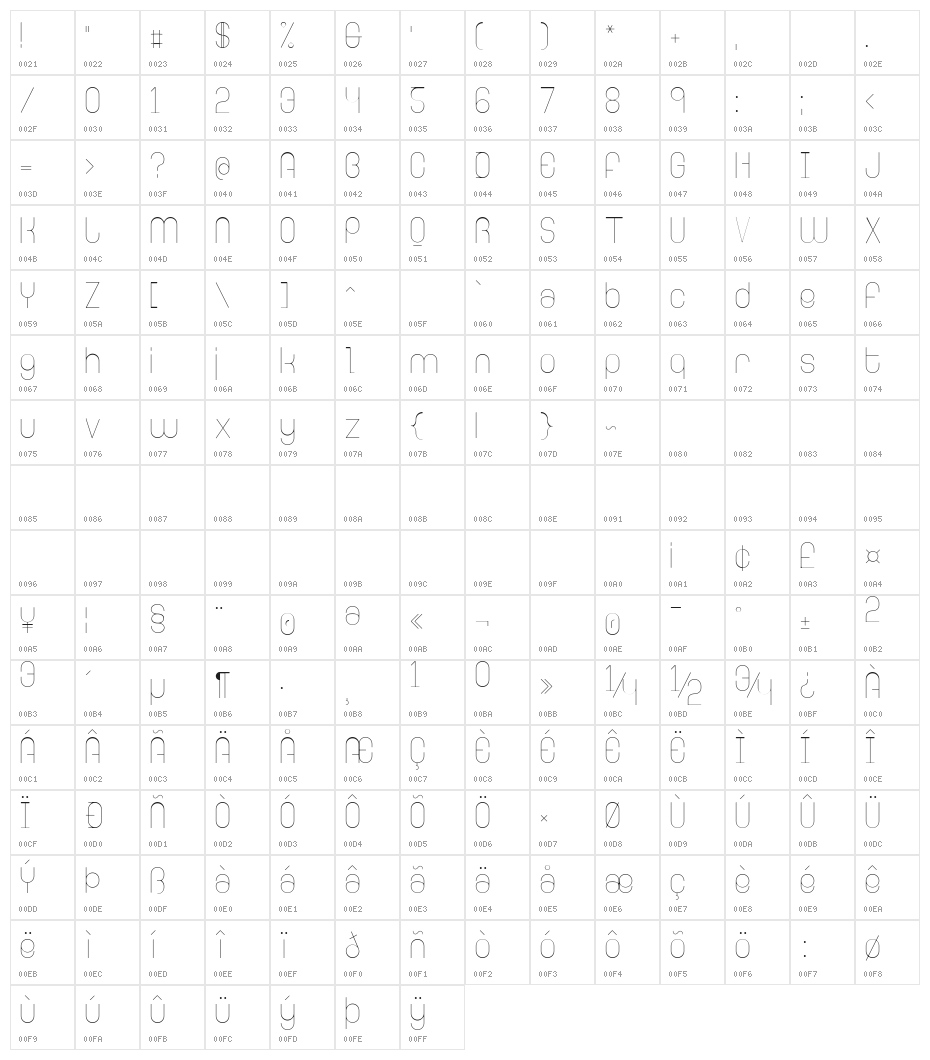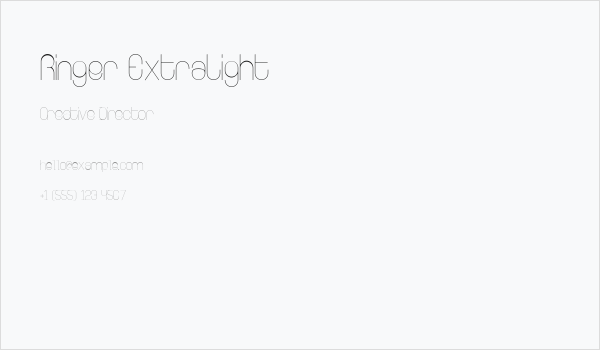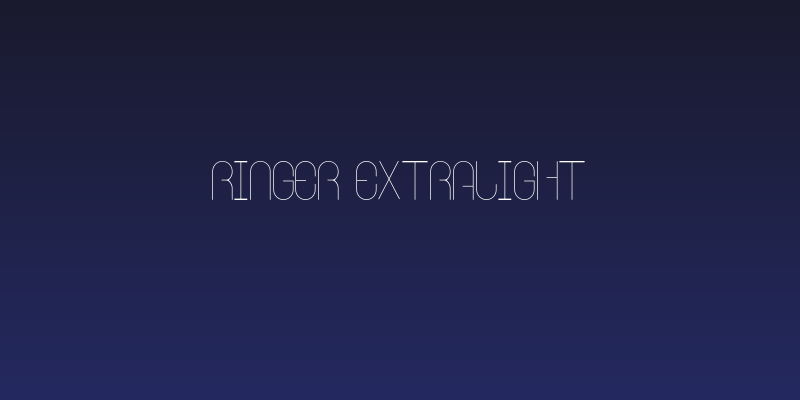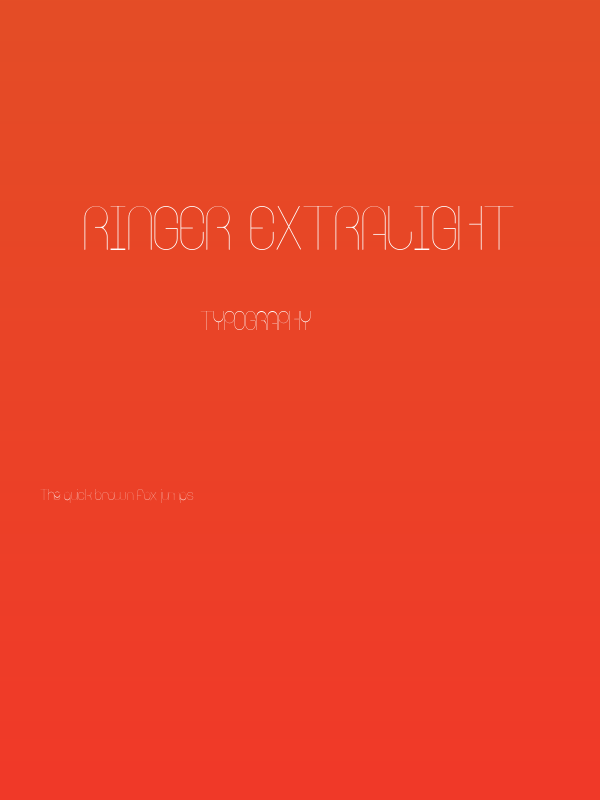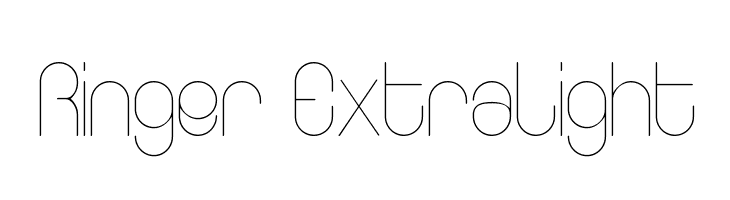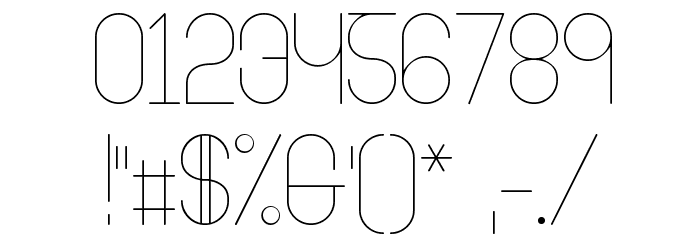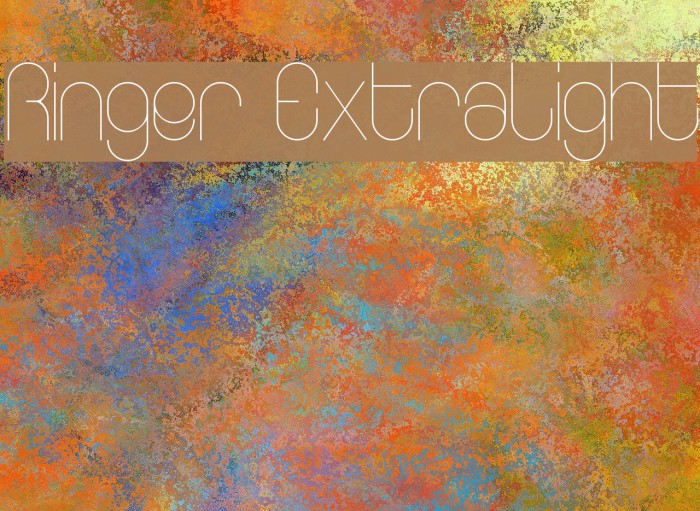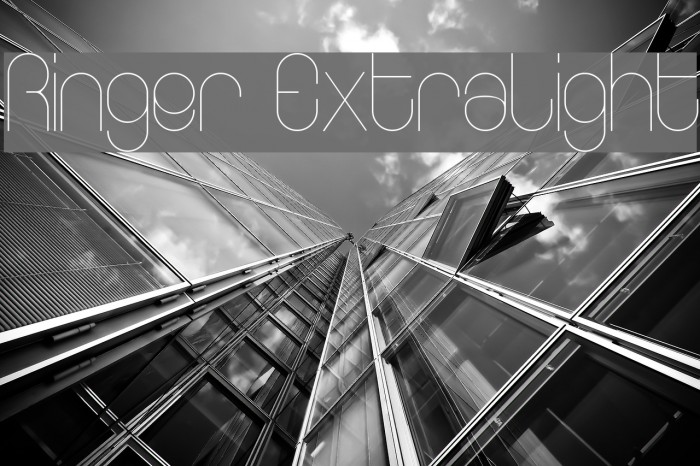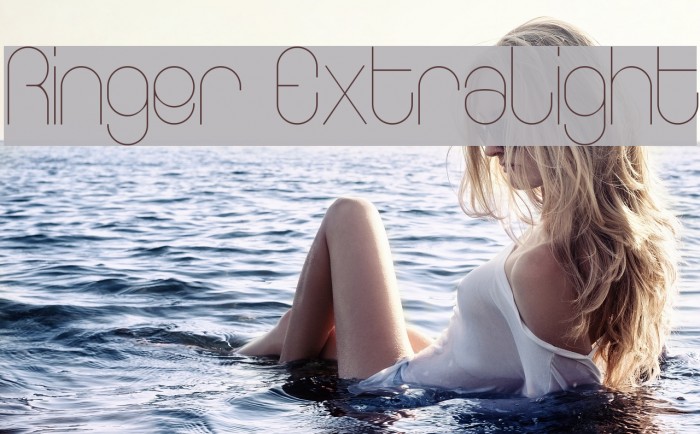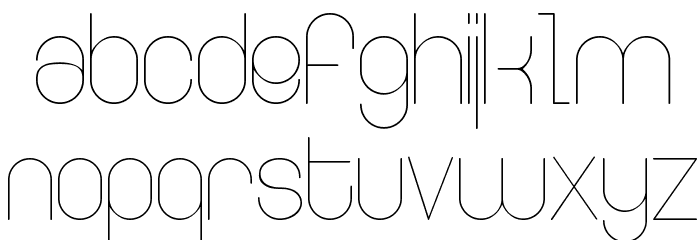
Ringer ExtraLight Font
Ringer ExtraLight Description
This font features an ultra-lightweight design with a modern, minimalist aesthetic. The characters are composed of thin, consistent strokes that create a sense of elegance and sophistication. The geometric structure is evident in the uniformity of the letterforms, with a focus on clean lines and open spaces. The uppercase and lowercase letters maintain a cohesive style, while the numerals and special characters complement the overall design. The font's airy quality makes it suitable for projects that require a contemporary and refined look.
| Proposed Projects | Ideal for fashion magazines, luxury branding, minimalist posters, and modern web design. |